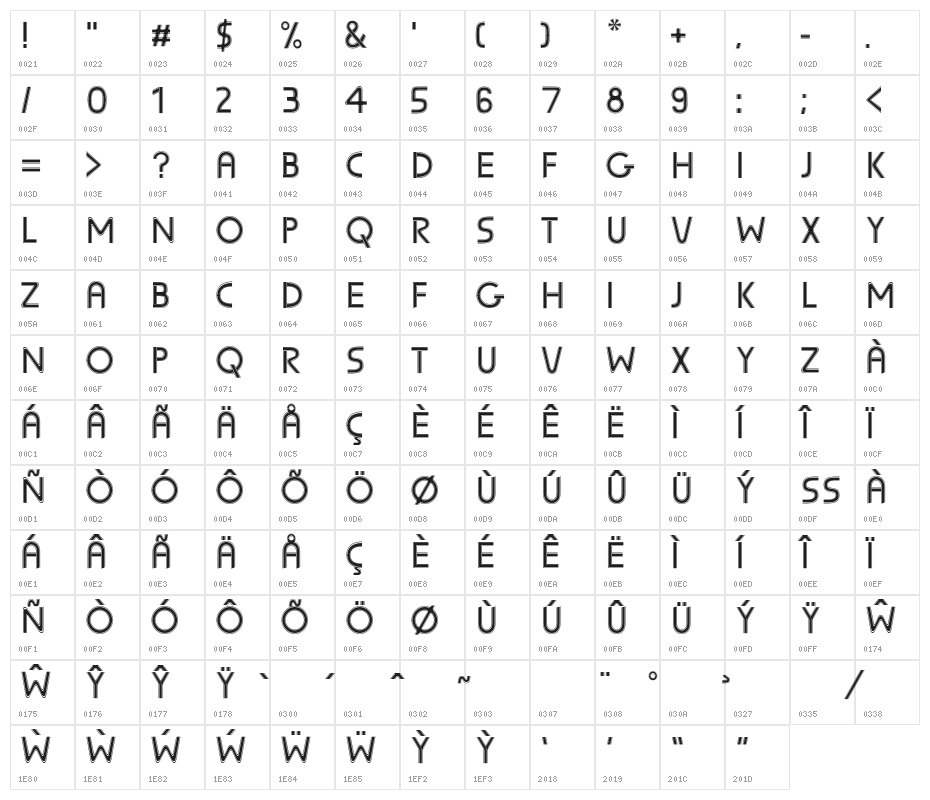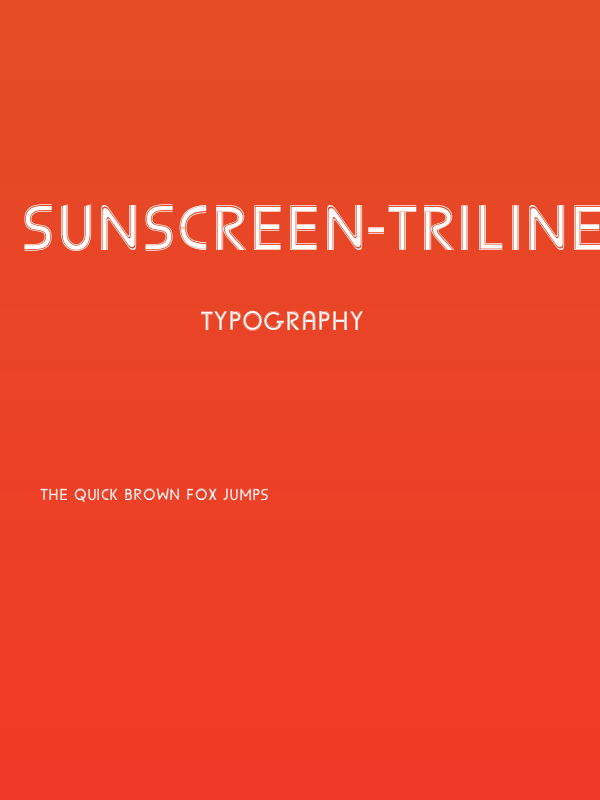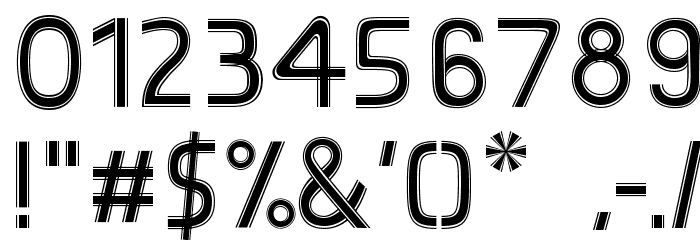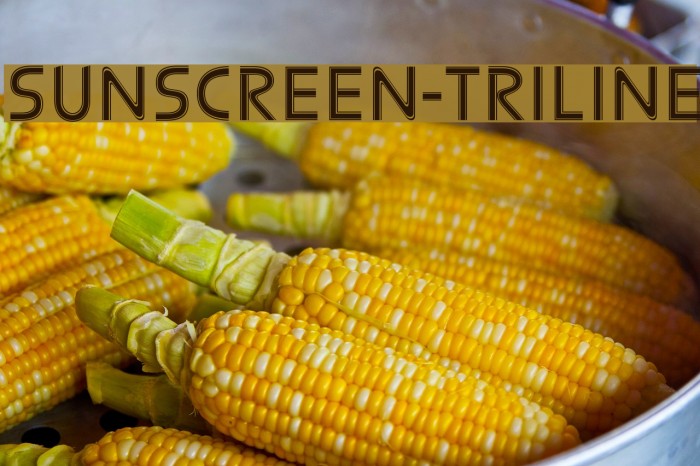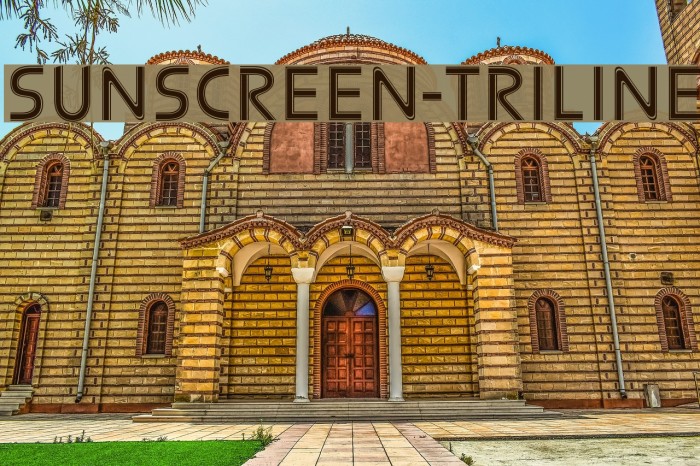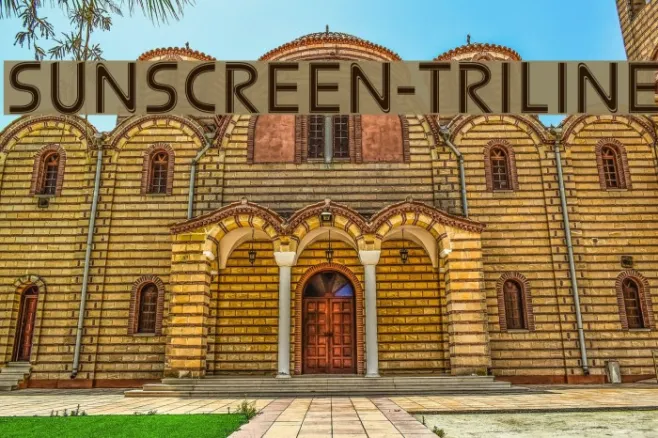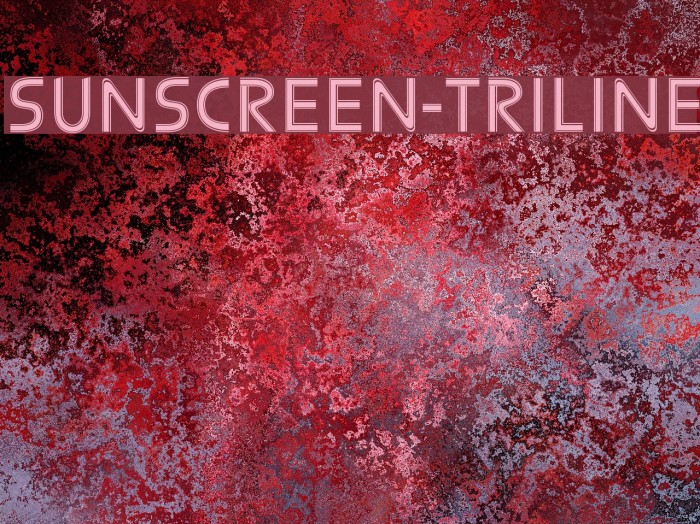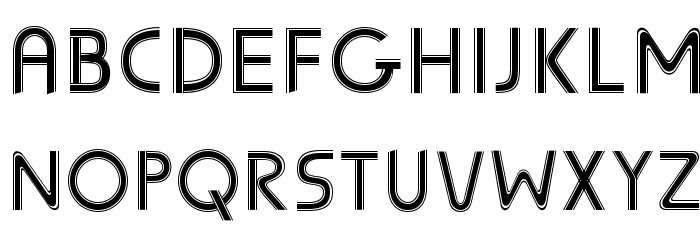
Sunscreen-Triline Font
Sunscreen-Triline Description
This font features a unique, geometric design with a triple-line effect that gives it a futuristic and dynamic appearance. The characters are bold and structured, with clean lines and a consistent thickness throughout. The uppercase and lowercase letters maintain a uniform style, while the numerals and special characters complement the overall aesthetic. The font's distinct triple-line pattern adds depth and visual interest, making it stand out in any design project.
| Proposed Projects | Ideal for branding, posters, and modern digital interfaces where a futuristic and eye-catching typeface is desired. |